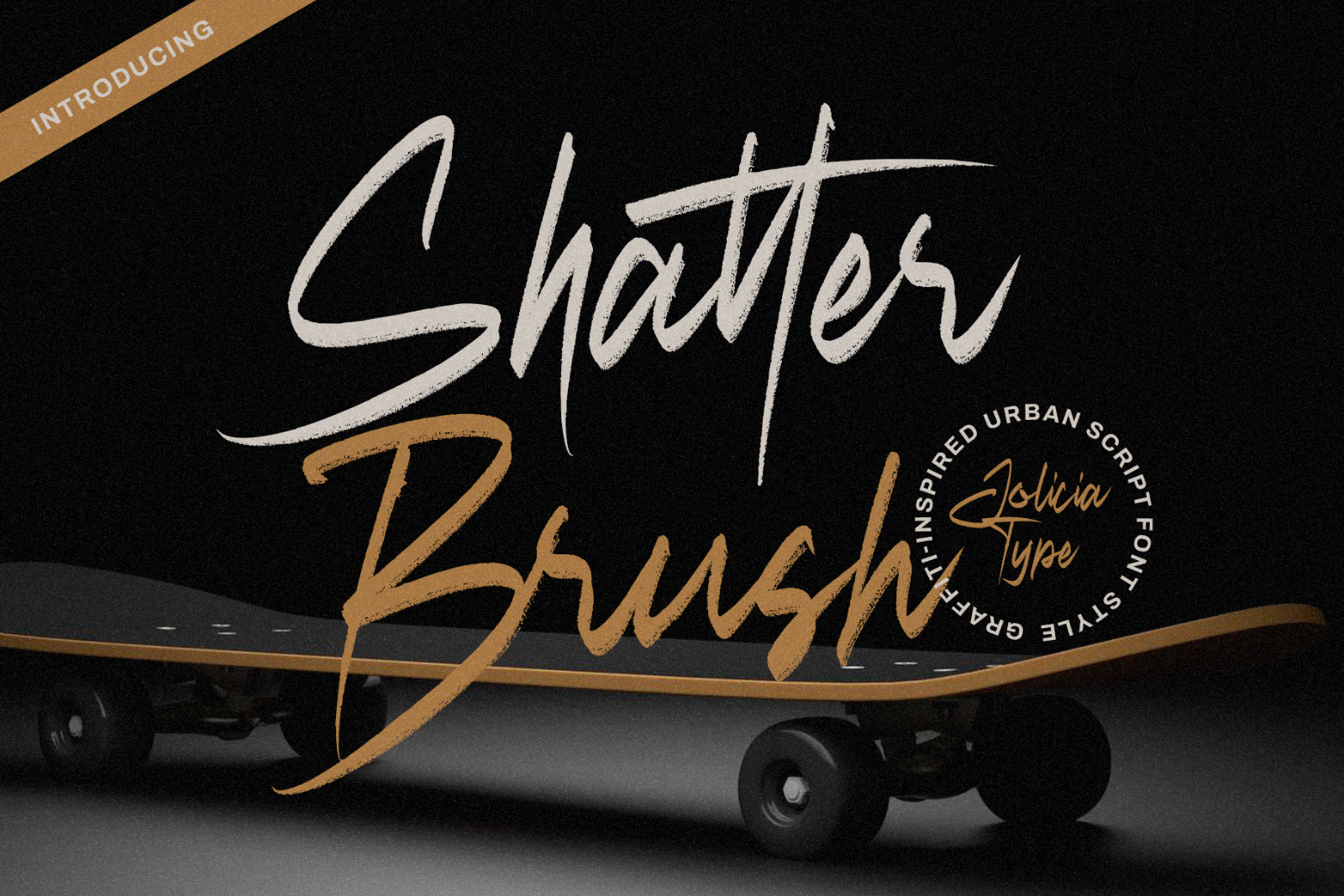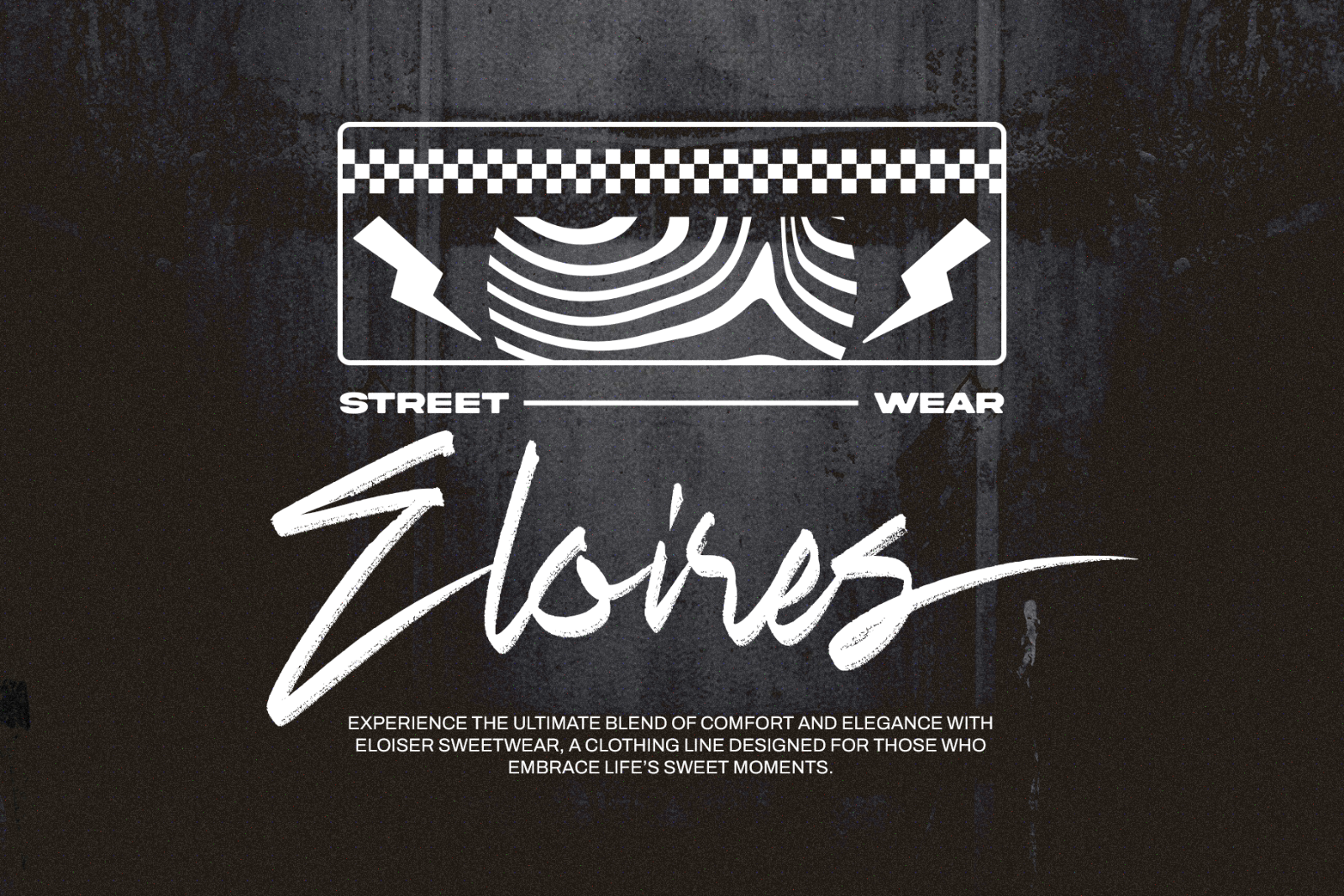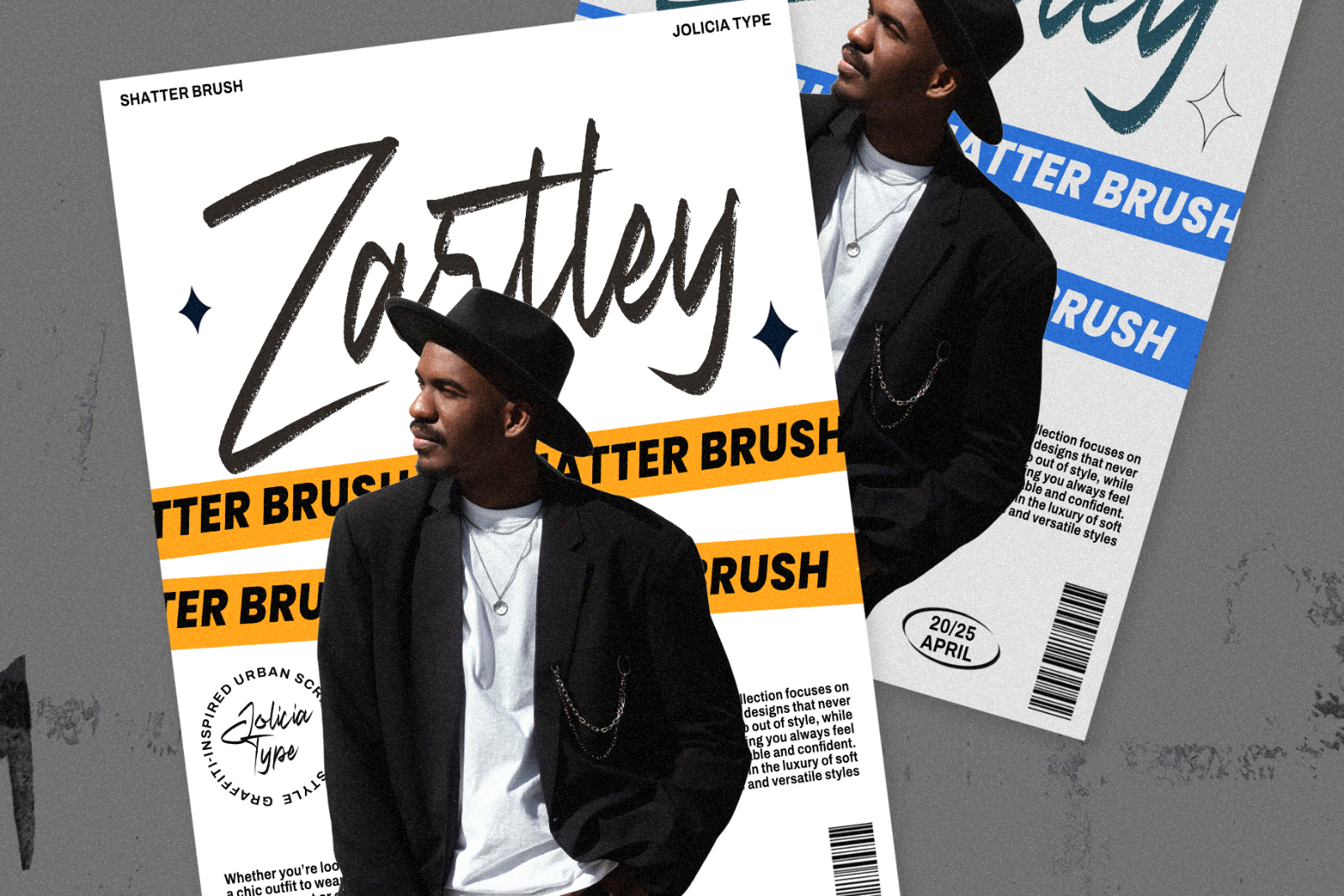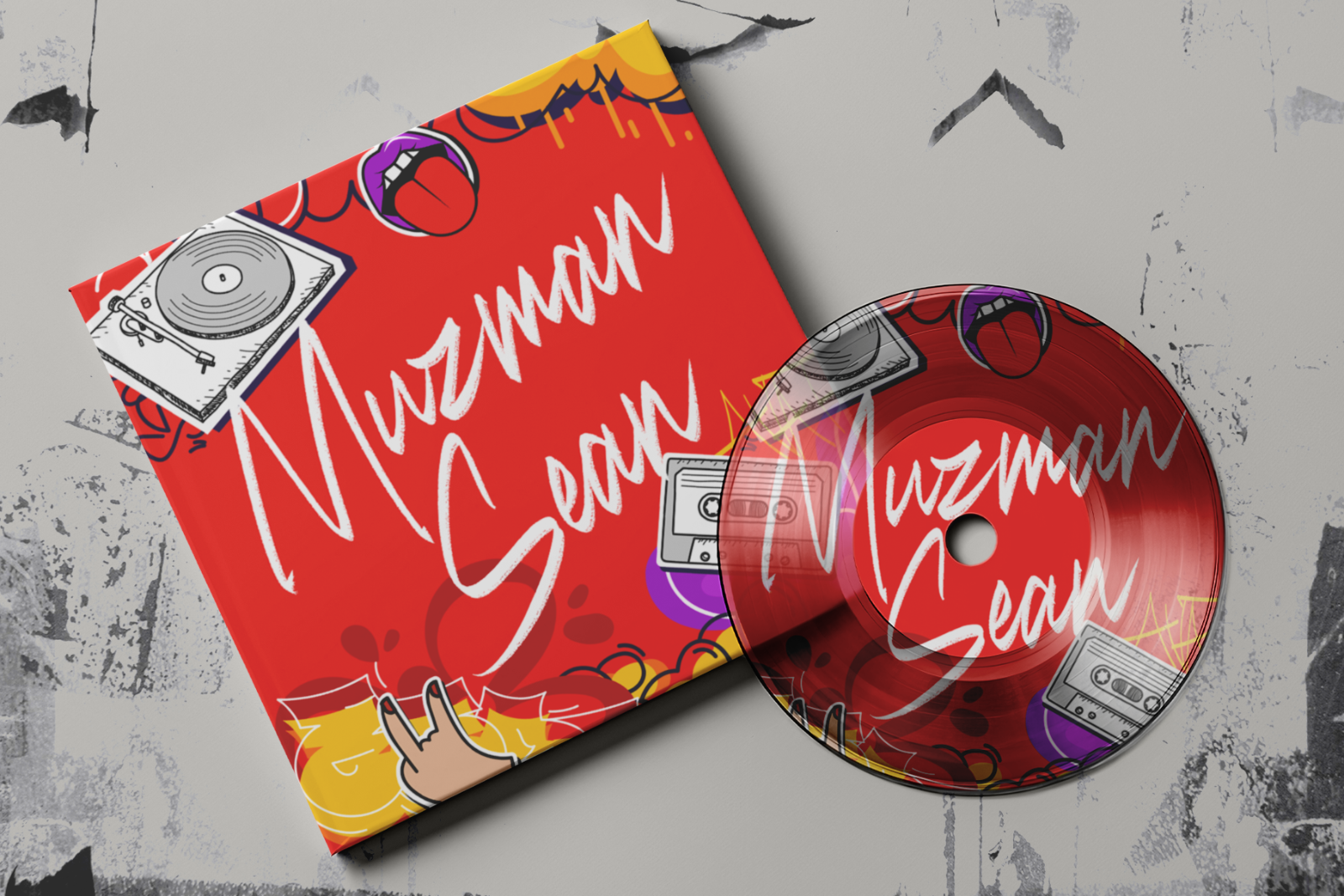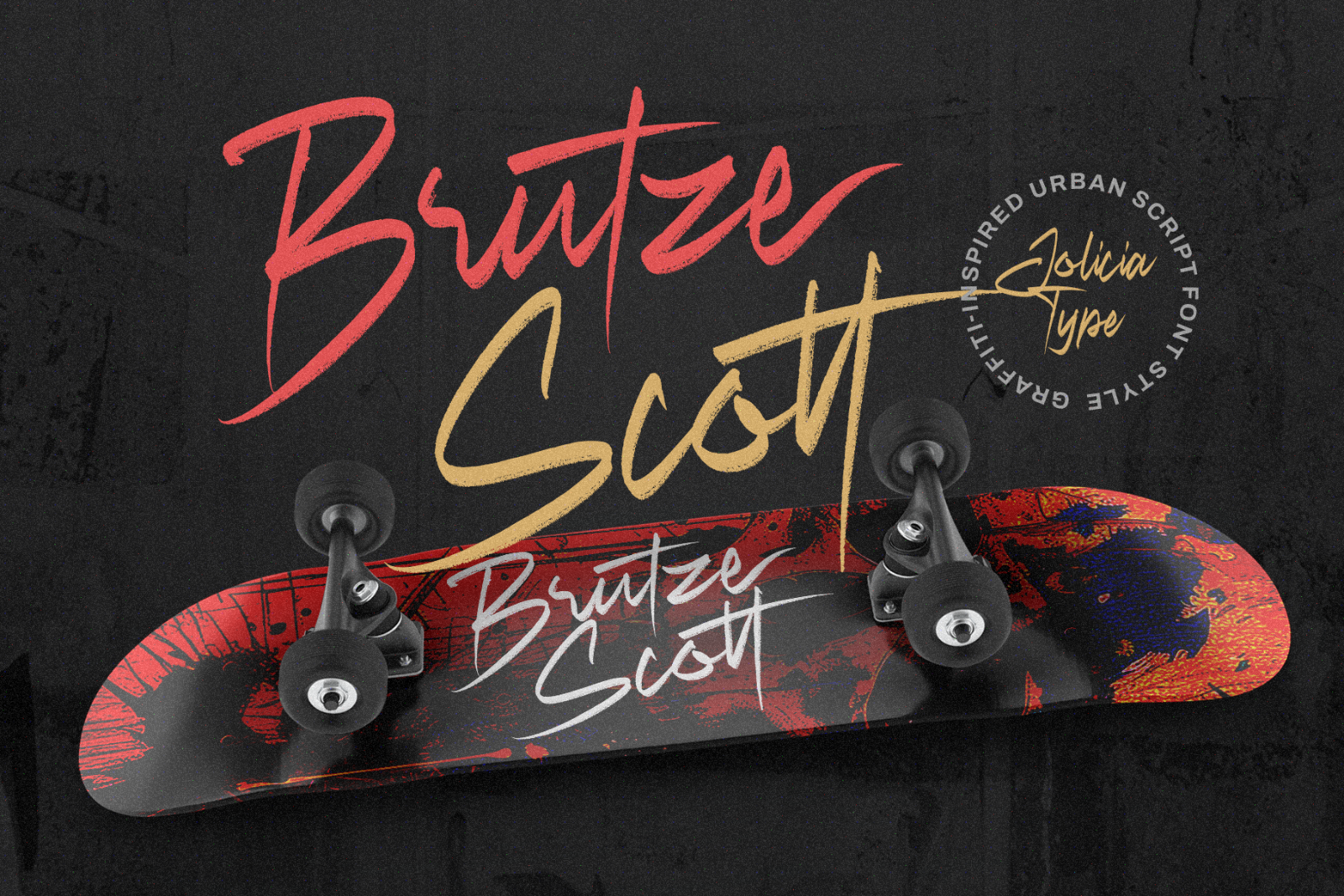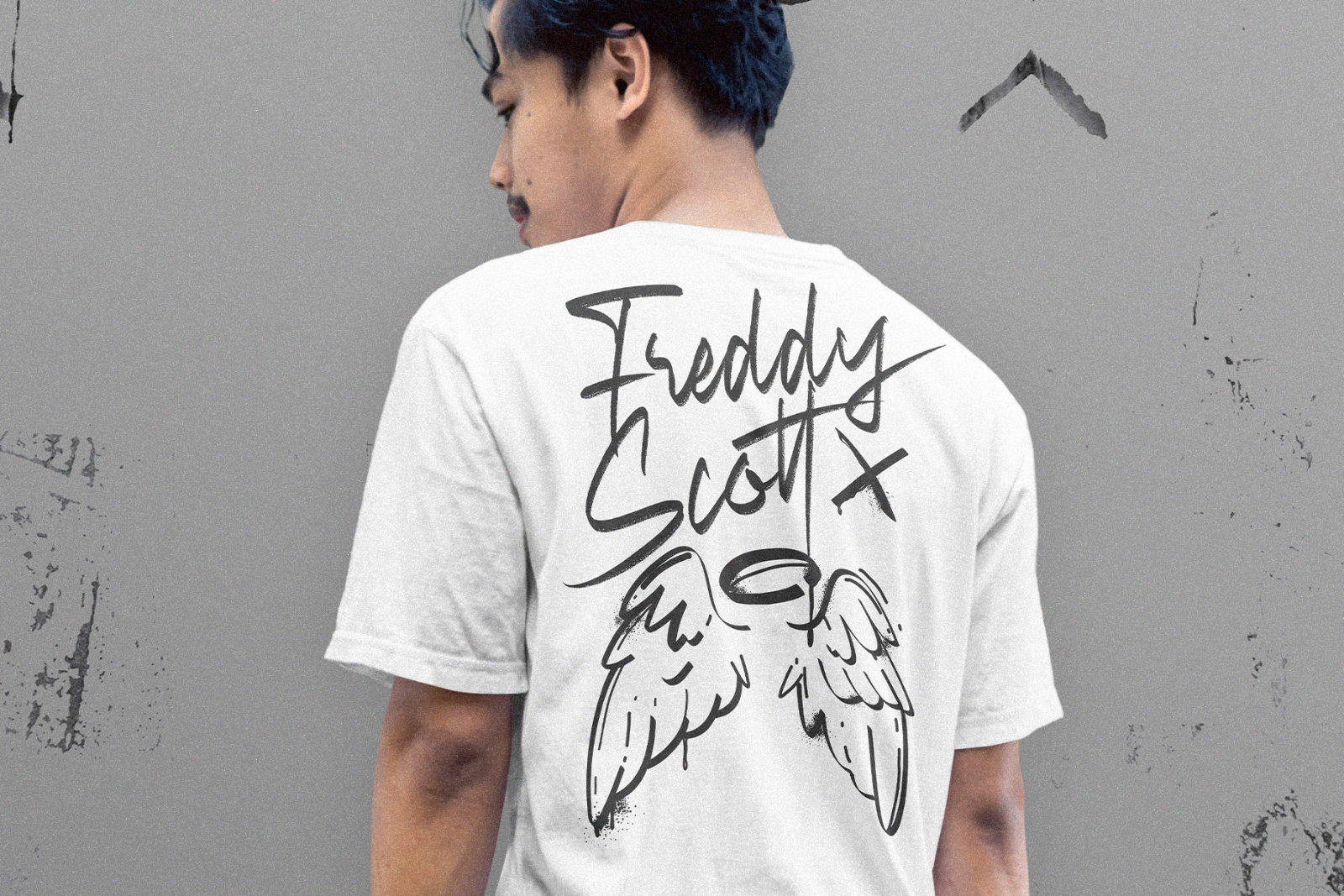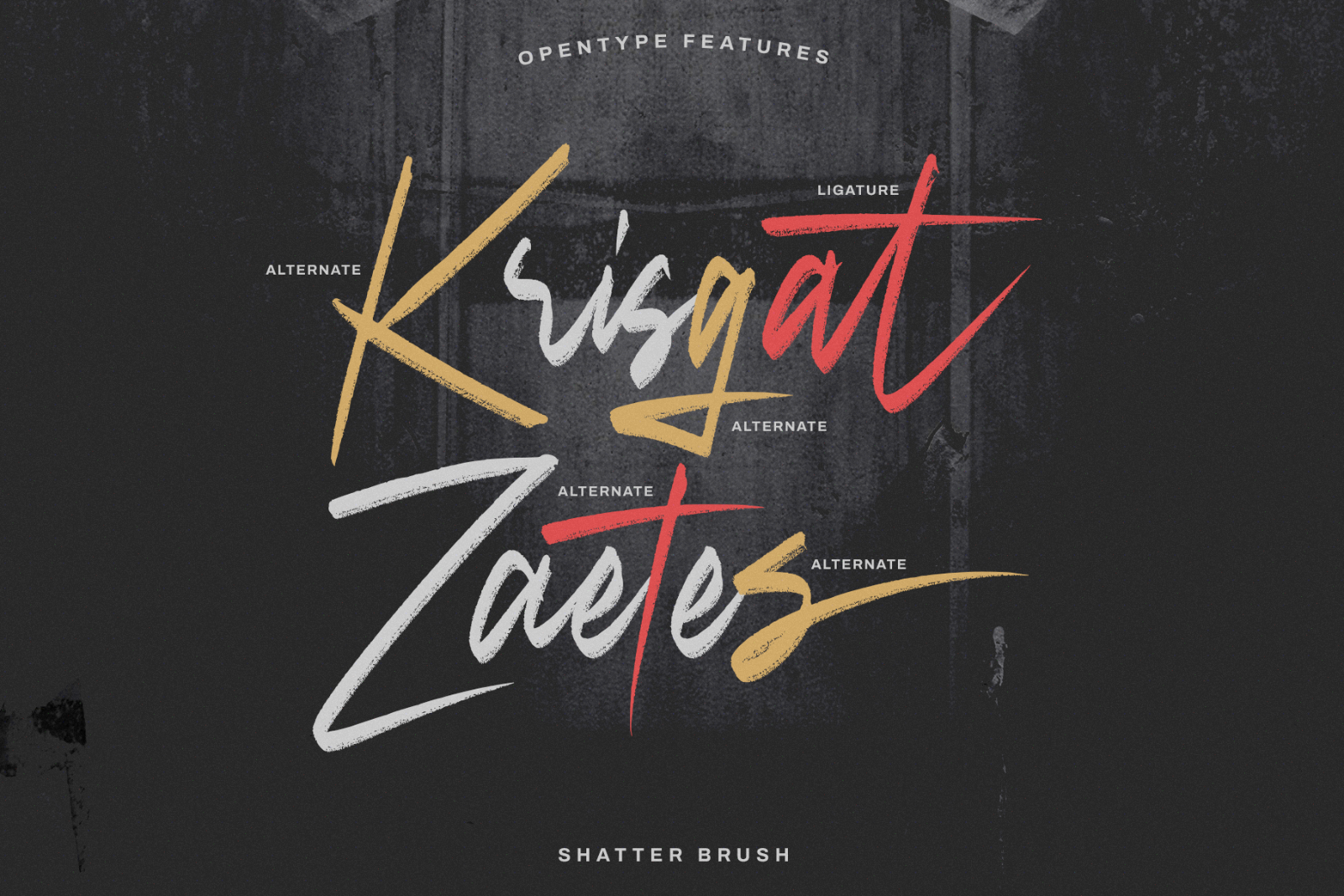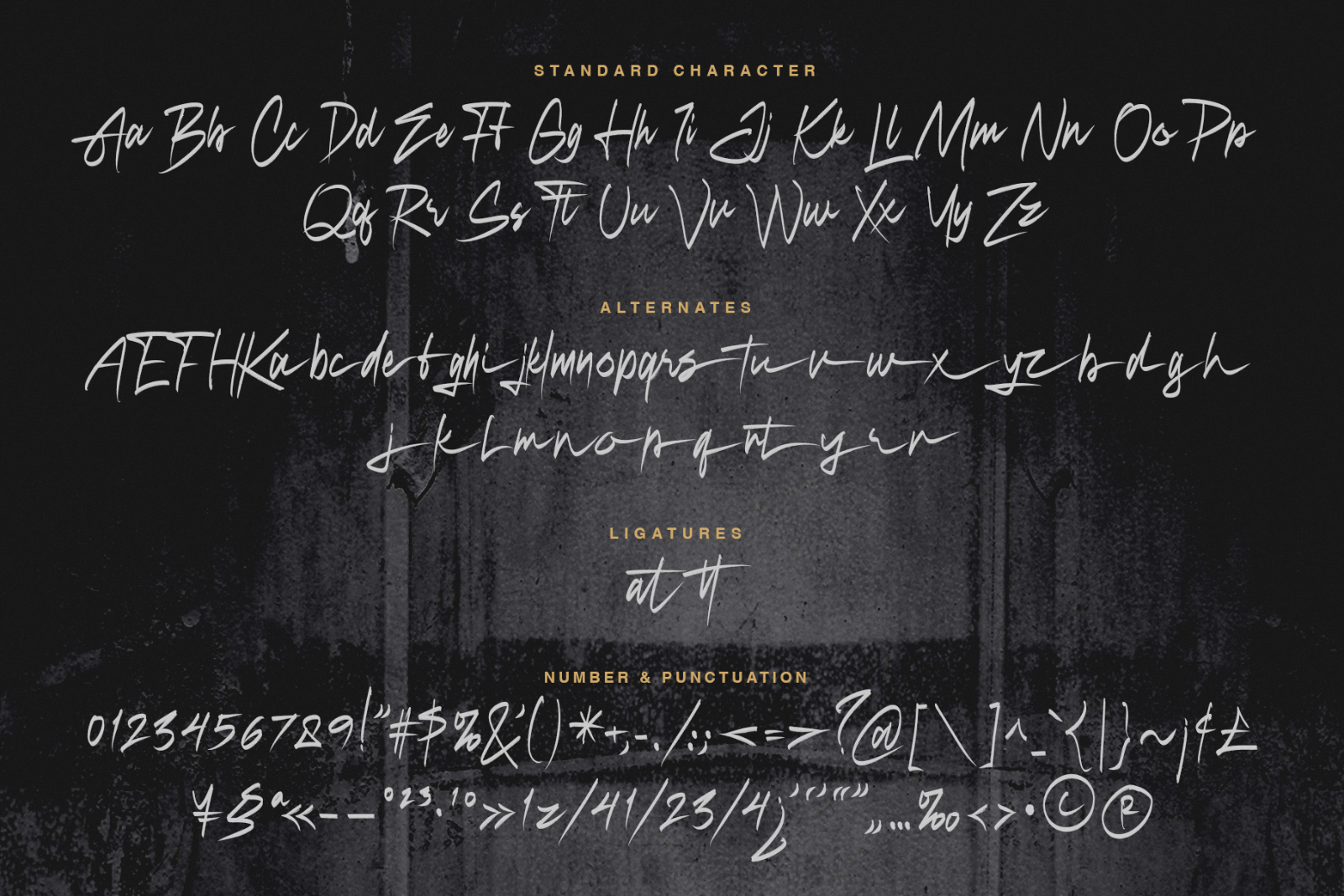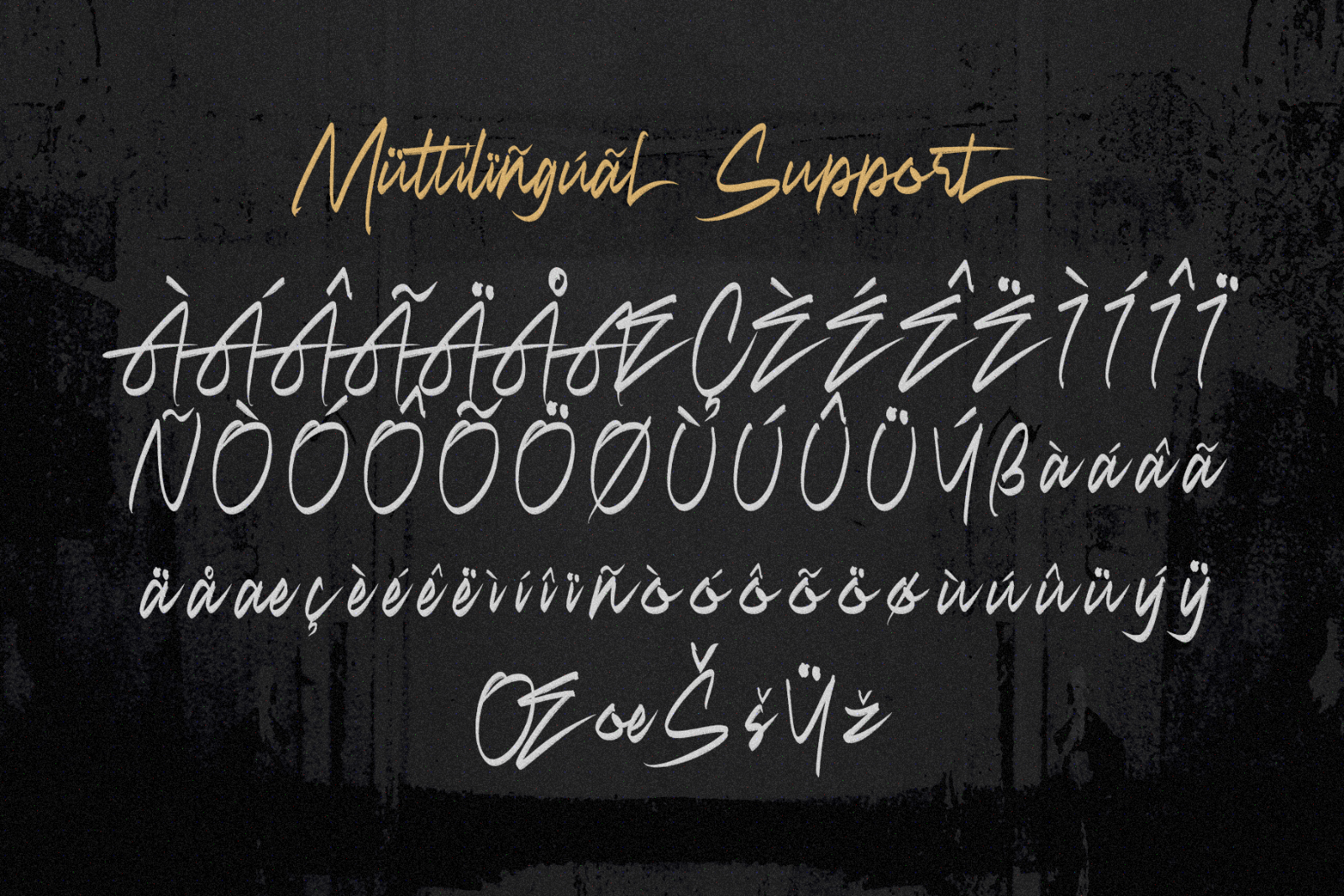
Shatter Brush is an urban script font that exudes boldness, energy, and attitude. It features rough, irregular strokes, creating a gritty and expressive feel, making it perfect for branding, posters, apparel, and designs with a street art or urban culture vibe.
Each character is dynamic, mimicking fast brushstrokes with an intentional rawness, adding a sense of spontaneity without sacrificing control. The font also includes alternate characters and ligatures, giving users more creative flexibility to make their designs look organic and unique.